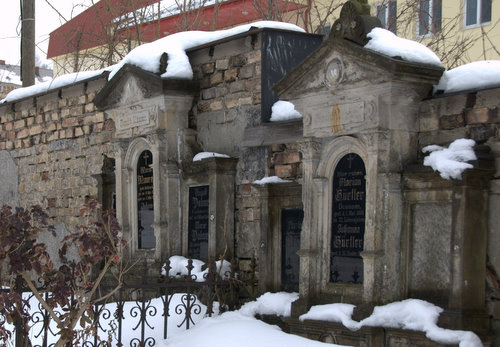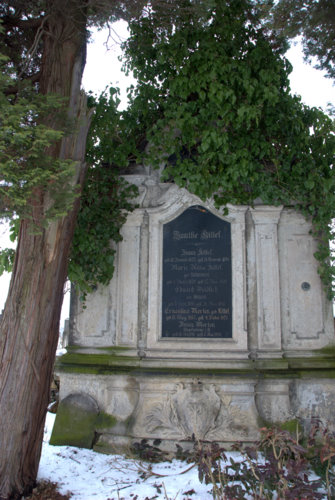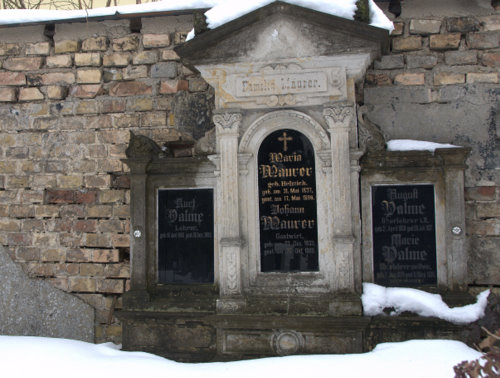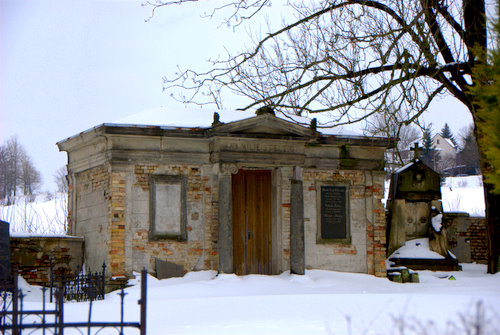
Vitrolite for Cemetery Glass Project
While in Kamenicky Senov, Czech Republic, I took the time to visit a quaint and very beautiful cemetery. I was surprised to see that most of the headstones contained black glass plates with the names sandblasted and sometimes leafed in them.
I've been approached to do some work for a cemetery and they are quite excited about the possibility of using plates like these for the project. In my searches I learned something interesting about Czech cemeteries. The plots and crypts are rented by the families of the deceased and when there is no more family or if they stop paying rent the plot is often rented to someone else and often the headstone is reused and the plate glass is covered or replaced with a new plate. I find that a bit sad as it obliterates a lot of genealogical information, but it explains the reasoning for all the etched black glass plates. I had simply put it down to glass being a native and traditional material.
Where would a person start to source black glass and what would a reasonable thickness be for a 30" x 36" panel?
If I were to leaf some of the sandblasted text, are there any foreseeable problems in blasting, cleaning, sizing, leafing and then removing the mask and touching up any rough edges right away?
I also found a link to a glass monument place which I thought might relate to a post that was posted by Eric a while back. You may have come across this or perhaps someone else posted it before Eric, but if not you will likely find it a bit interesting, especially since our trip. :) check it out
Re: Cemetery Glass
Kelly,
I did posted a lot of links from European glasmanufactures who make headstones.
Our culture (West European) is very progresive in different styles of headstones.
The colored, fused, kiln fired, cast, sandblasted and sculptured glass techinques are widely used.
As I mentioned then, most of the glass techniques are very labourous and therefore not everybody can pay for the work.
Headstones is something else, often no costs are hold back and therefore I was exploring ways to use the gold, silvering on embossed glass techniques for headstones.
If you want I can search some of the resources of this black glass herre in Europe.....
Re: Cemetery Glass
Do you know the name of the black glass in English?
Re: Cemetery Glass
In the states there used to be available 5/16" thick sheets of opaque colored glass sheets. These sheets were shiny glass on one side and "knurled textured" on the other side to allow them to be pasted to concrete or stone store fronts. It was really nice looking and some of it is still in place and looking as new as when it was installed in the 20's through the early 60's. This glass was called VITROLITE and later SPANDREL glass.
Unfortunately, there are now "those type" in this world who don't respect property and many of these installations that could have remained in history as examples of past architectural treasures have lost their beauty to the point of a broken spark plug or etching paste. What a currant STATEMENT on human spirit to think that some without the SKILL to create something so beautifully long lasting actively thrive to 'F' it up for eternity in a second. (how is it that all those gilded Rawson & Evans signs that survived for years in public never have any monikers gouged into their surface?) What a distasteful waste, more fodder for the landfills and the reason why few store owners desire to chance the craft these days.
Just do a google on "vitrolite" and see some of the stories and photos of past store fronts. Also many high end stores sported vitrolite with elaborate stage carved art deco and other intricate motives. The contrast on the shiny surface with the matte sand carving was fantastic, added gilding really set it off.
Re: Cemetery Glass
I did a search......
This guy claims to be the only remaining black glass supplier in the world.
Vitrolite
Check out his website.
Re: Vitrolite for Cemetery Glass Project
What will you do? Make a text design, like the ones we saw in the Czech Republic or will you make your own design with ornaments and all?